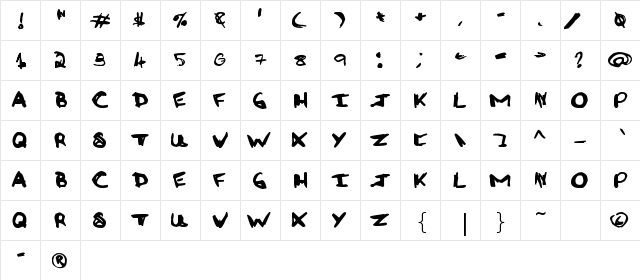
Rough Graffiti Regular
Design Context for Rough Graffiti Typeface
Rough Graffiti embraces imperfection — its rough, textured character adds raw authenticity to designs that want to feel lived-in and unconventional.
A strong fit for alternative music projects, graffiti-adjacent design, and anything that deliberately resists polish.
Pro Tip: Use Rough Graffiti at larger sizes where the texture and irregularity of each letterform can be clearly seen — it loses its character at small sizes.